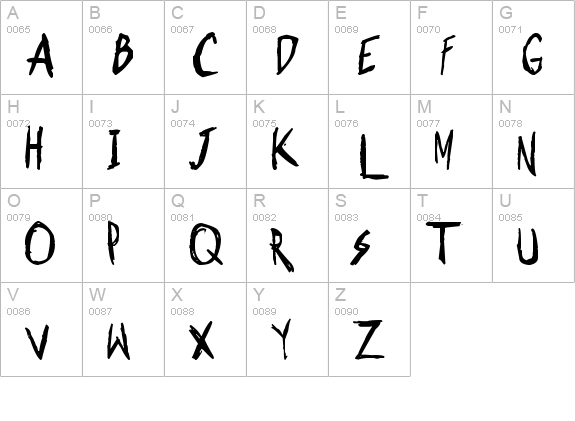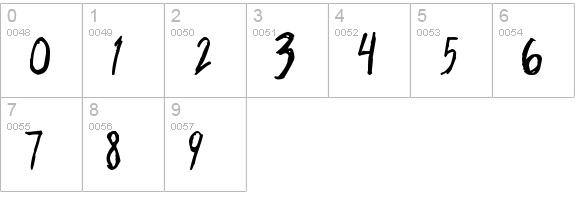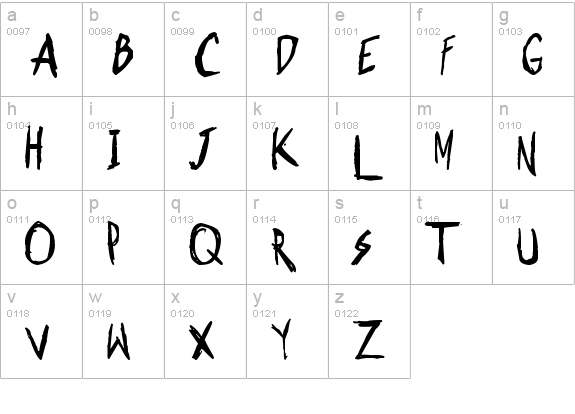
Shonen Punk! Custom Bold Bold Font Details
Shonen Punk! Custom Bold Bold is a strong, high-contrast variant in the Shonen typeface family \xE2\x80\x94 well suited to headlines, attention-grabbing titles, and strong calls-to-action.
Shonen Punk! Custom Bold Bold font is a dynamic and edgy typeface that exudes a rebellious spirit perfect for making a bold statement. With its sharp angles and bold strokes, this font is ideal for capturing attention and adding a touch of attitude to any design project. Whether you're creating a poster, logo, or website, Shonen Punk! Custom Bold Bold font will bring a unique and energetic vibe to your work. Best of all, this striking font is available for free download at FontsMarket.com. Don't miss out on the opportunity to add this eye-catching typeface to your collection and take your designs to the next level. Stand out from the crowd and unleash your creativity with Shonen Punk! Custom Bold Bold font today.